Margriet
Abril Display in use in the magazine Margriet
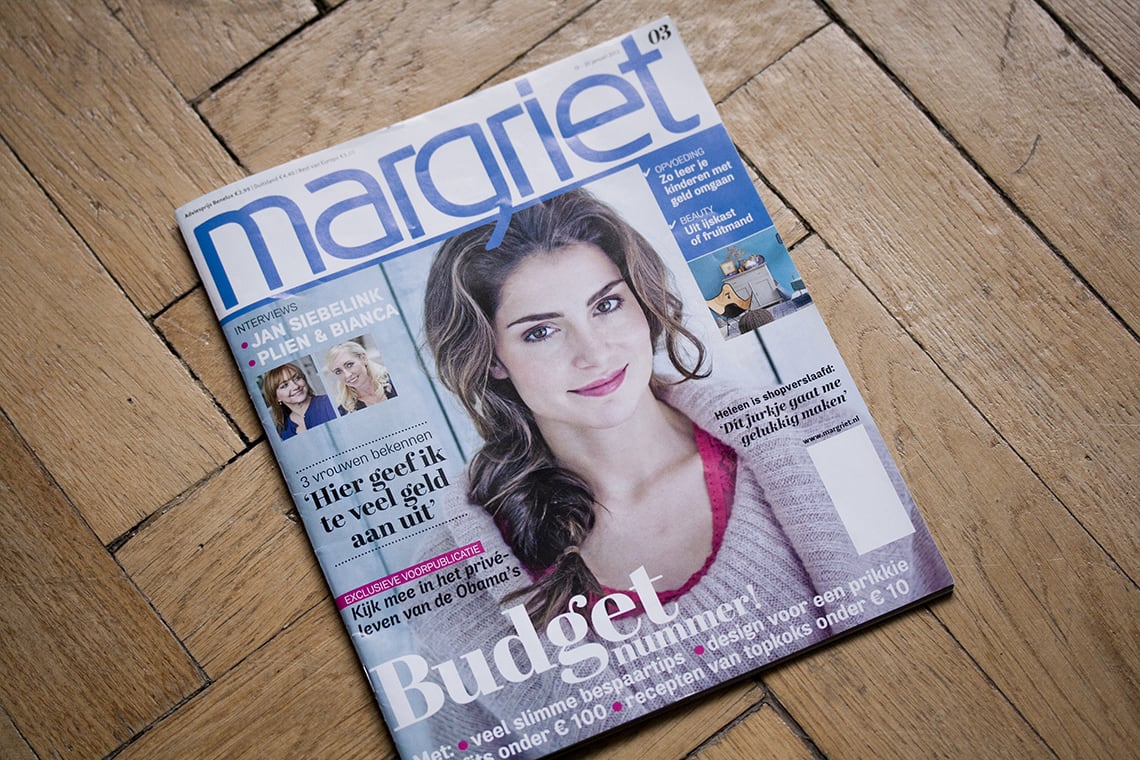
One of surely many Dutch Women’s magazines, called Margriet, started using Abril Display for headlines, pull-out quotes and various other functions within the entire magazine.